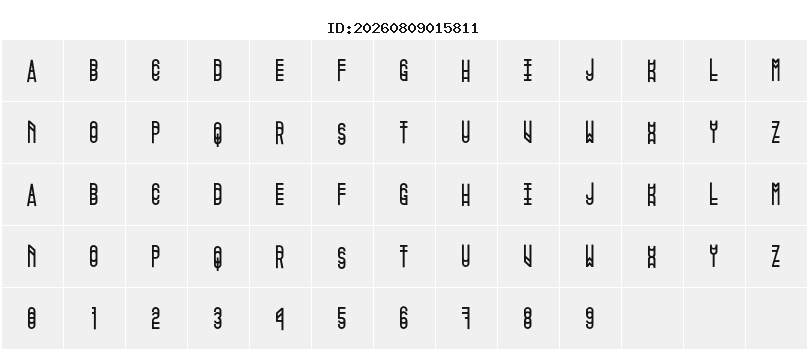
• Font Name: Pigopago
• Designer: Blastto
About Pigopago.otf
Pigopago.otf is a modern, elegant sans-serif font designed for ultimate readability and visual harmony. Perfect for branding, headlines, web design, and print materials.